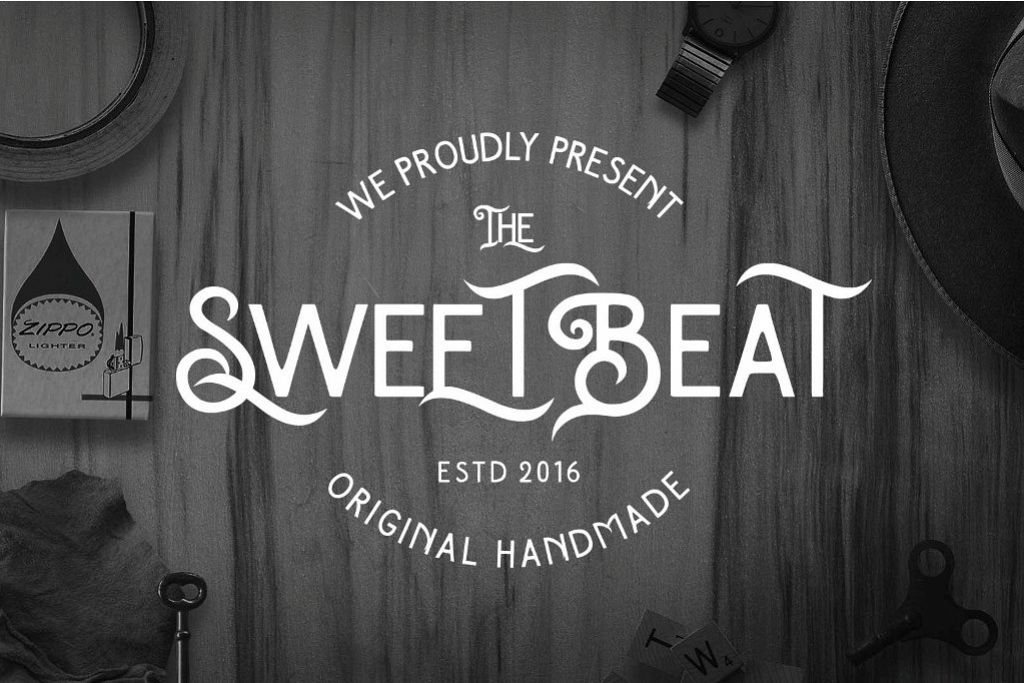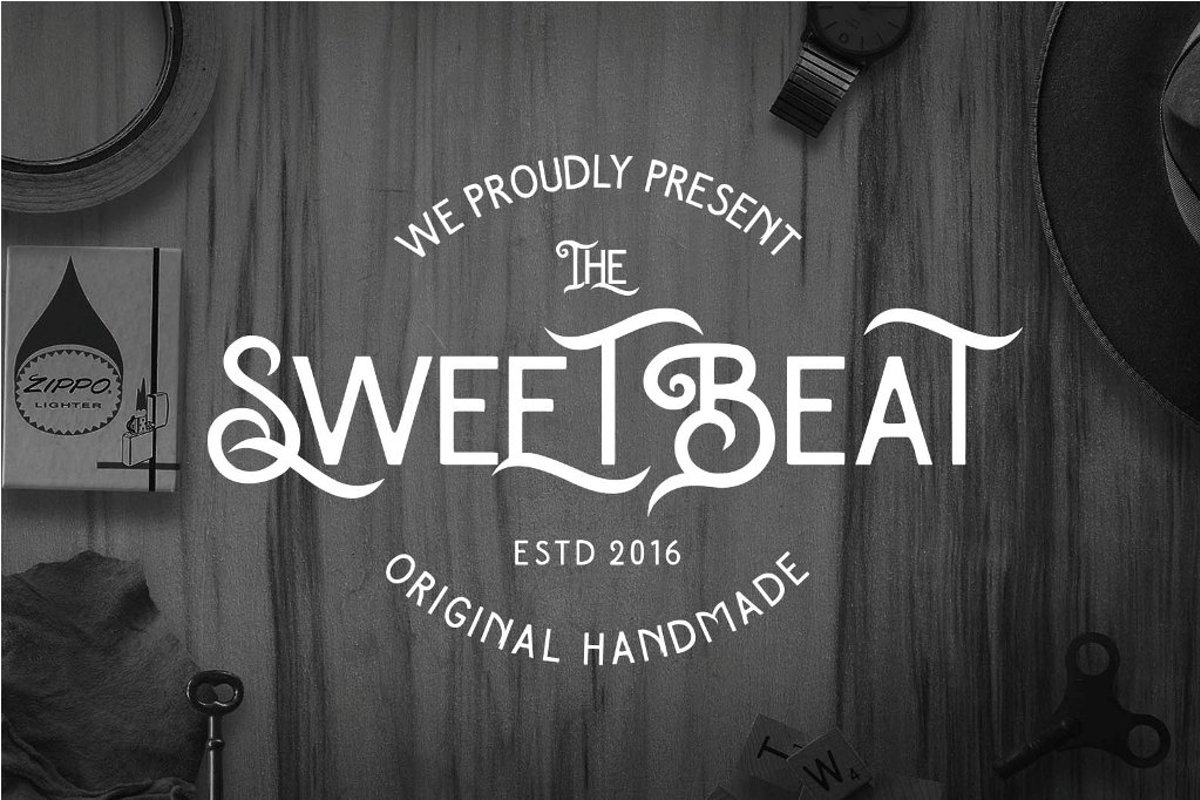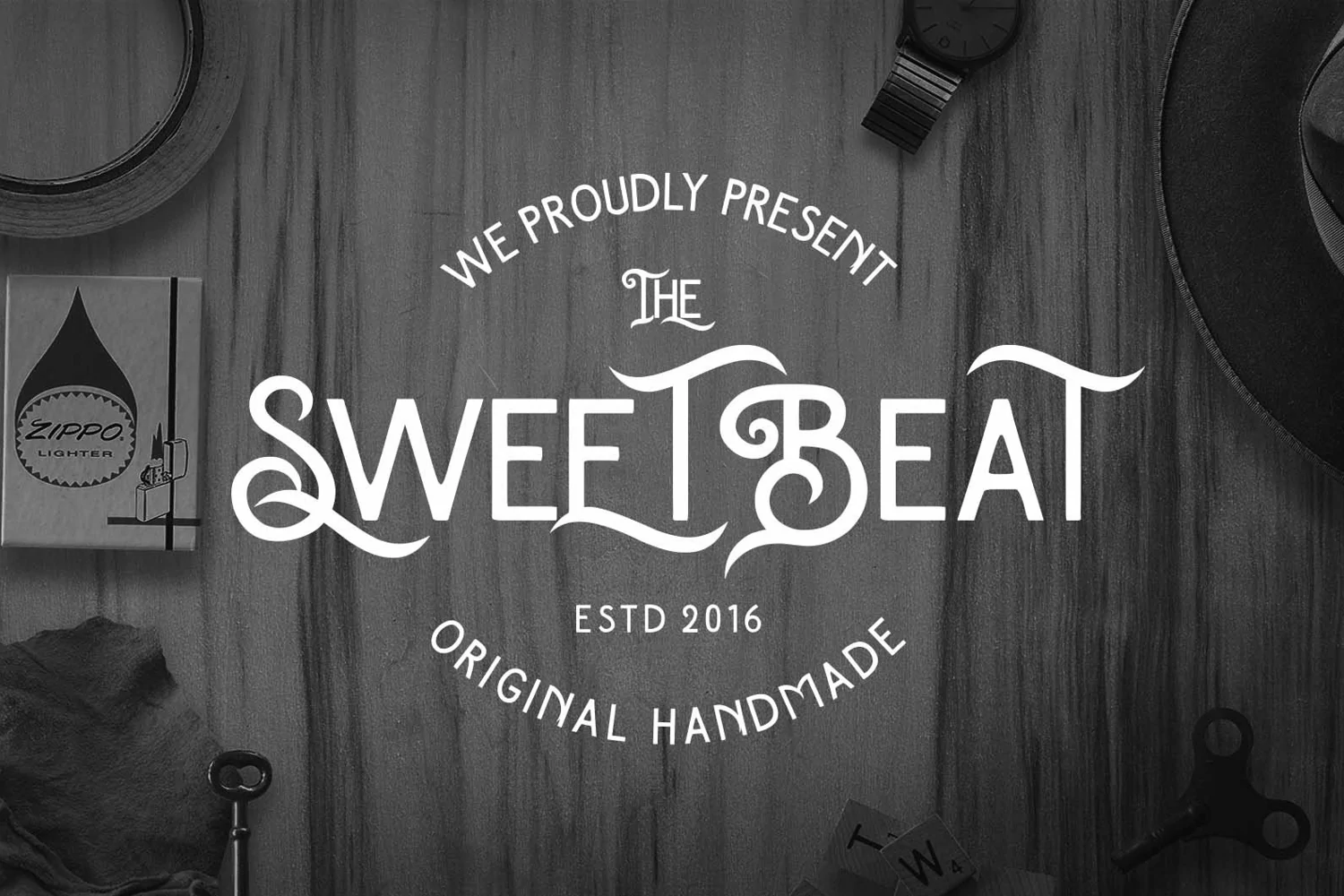
The SweetBeat Typeface
**The SweetBeat Typeface**
A handmade typeface that inspired from hand-drawn lettering and vintage style, suitable for your awesome works (Brands, Poster, Logo, Advertisement, etc)
**Features :**
- Stylistic Alternates
- Stylistic Set